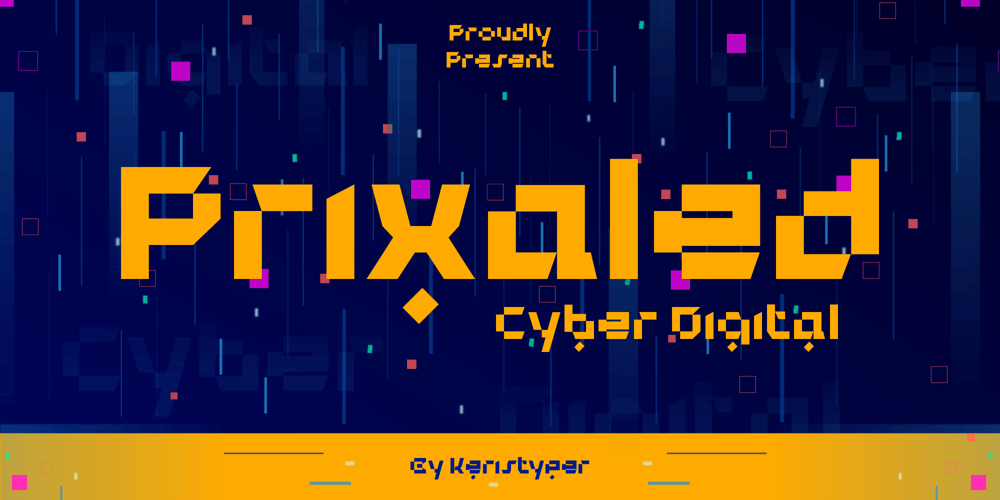
Prixaled Font Family was designed by Tezar Tantular and published by Keristyper Studio. Prixaled contains 1 styles and family package options. Introducing Prixaled display font to make your typography design more futuristic. This font is good for logo design, social media, movie titles, book titles, short and even long text. It will also look great when combined with any other sans serif, serif or handwritten typeface.Featured: Standard Uppercase & Lowercase Numeral & Punctuation Multilingual : ä ö ü Ä Ö Ü ß ¿ ¡ Alternate characters & ligatures PUA encoded We recommend using applications which support OpenType features and have a Glyphs panel like e.g. Adobe applications or Corel Draw to allow full access to all the glyph variations included in our fonts.Hope you enjoy our fonts!